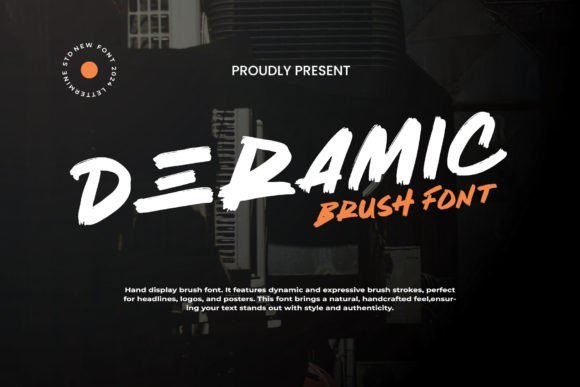
Introduction to Deramic Font
Deramic is a bold and timeless handwritten font.
Why Choose Deramic Font?
Deramic Font offers exceptional quality and versatility, making it a valuable addition to your design toolkit. Whether you’re creating for personal projects or commercial use, Deramic Font delivers professional results.